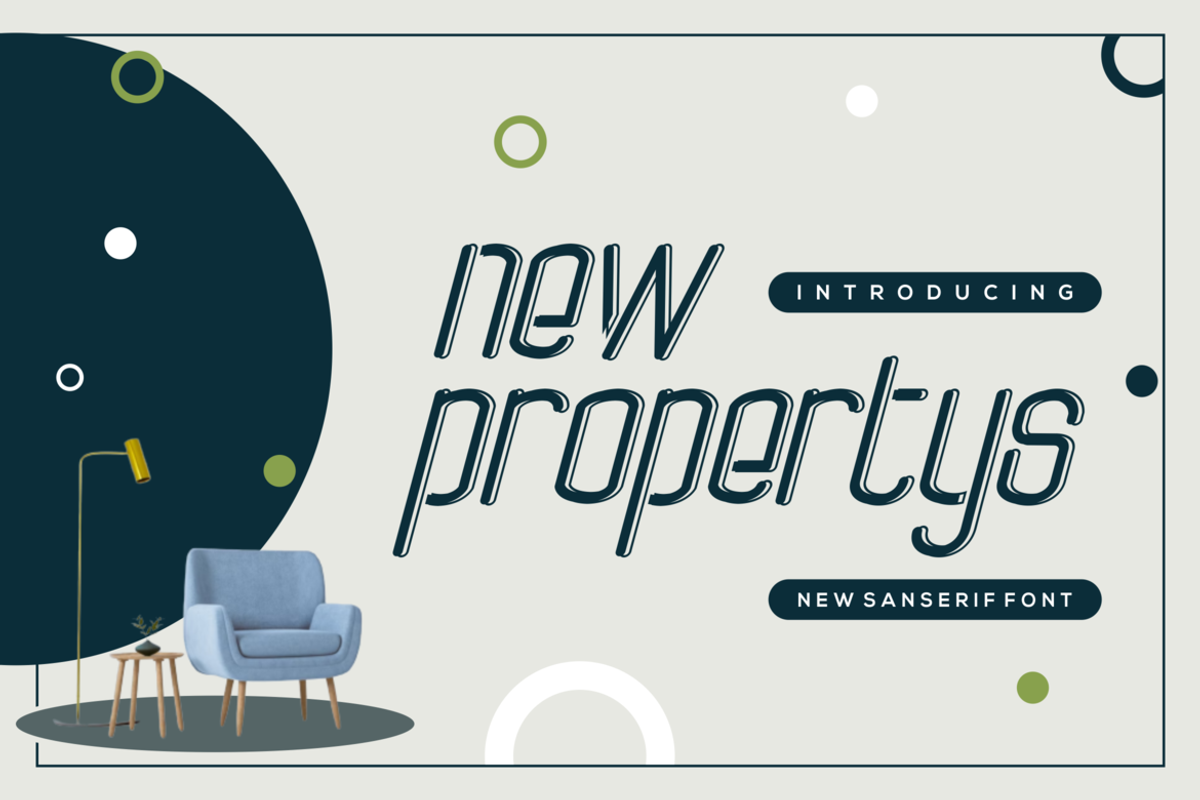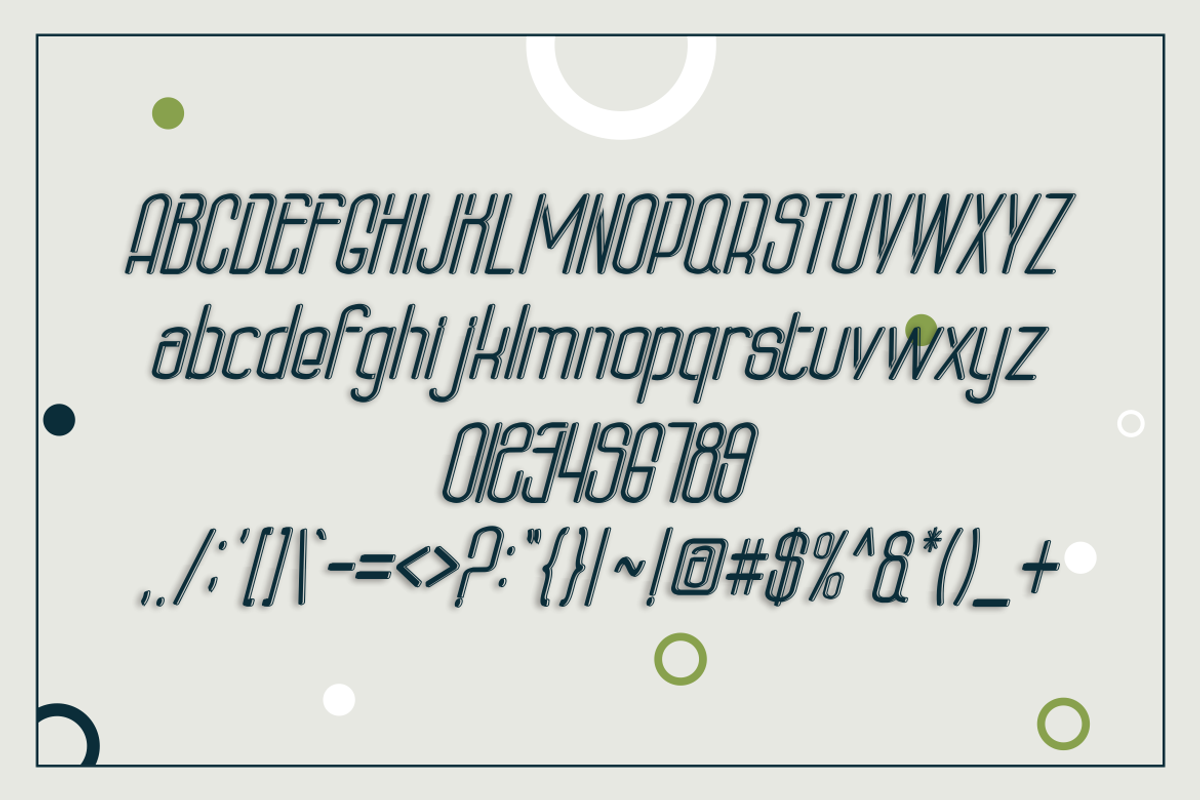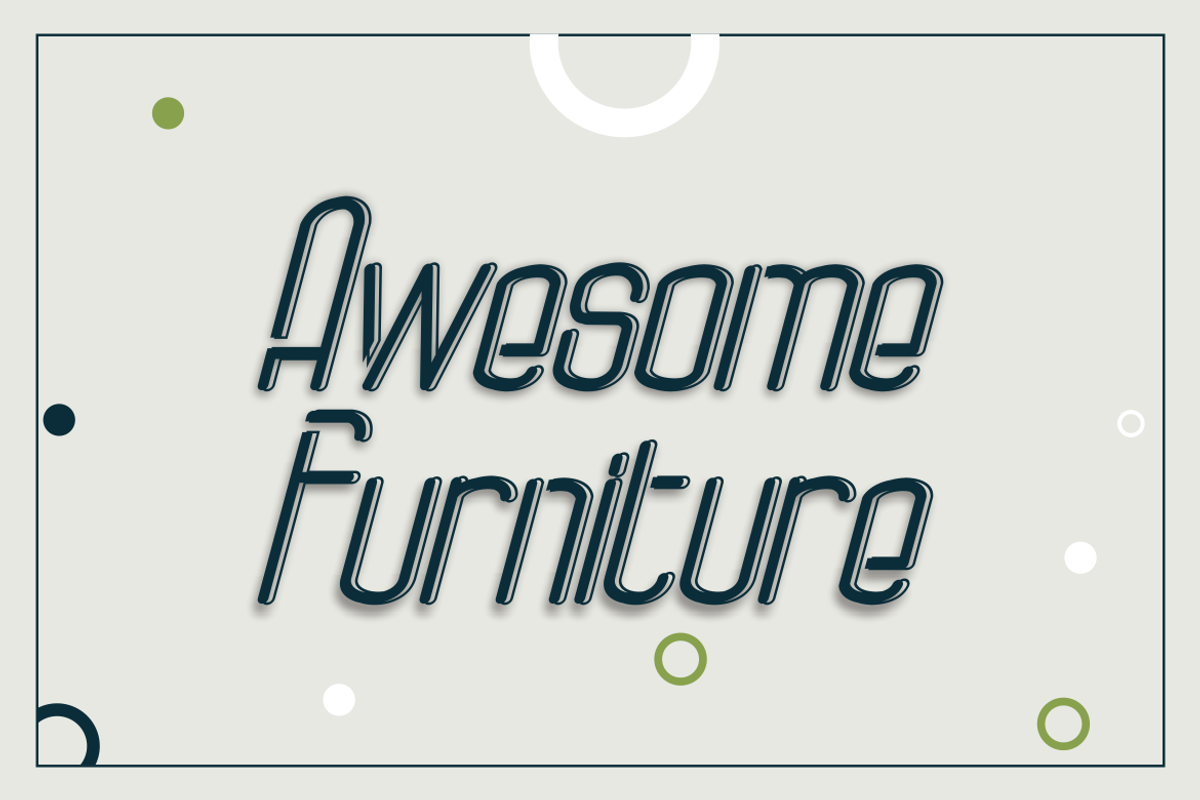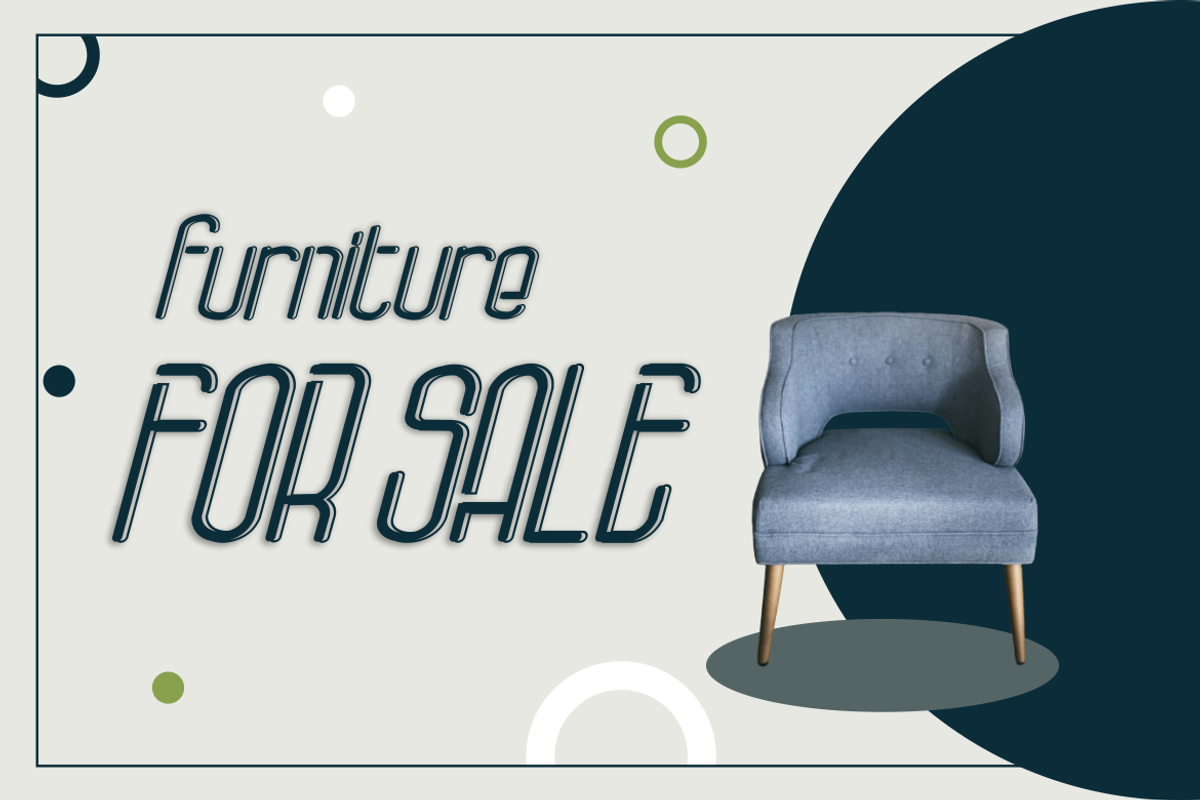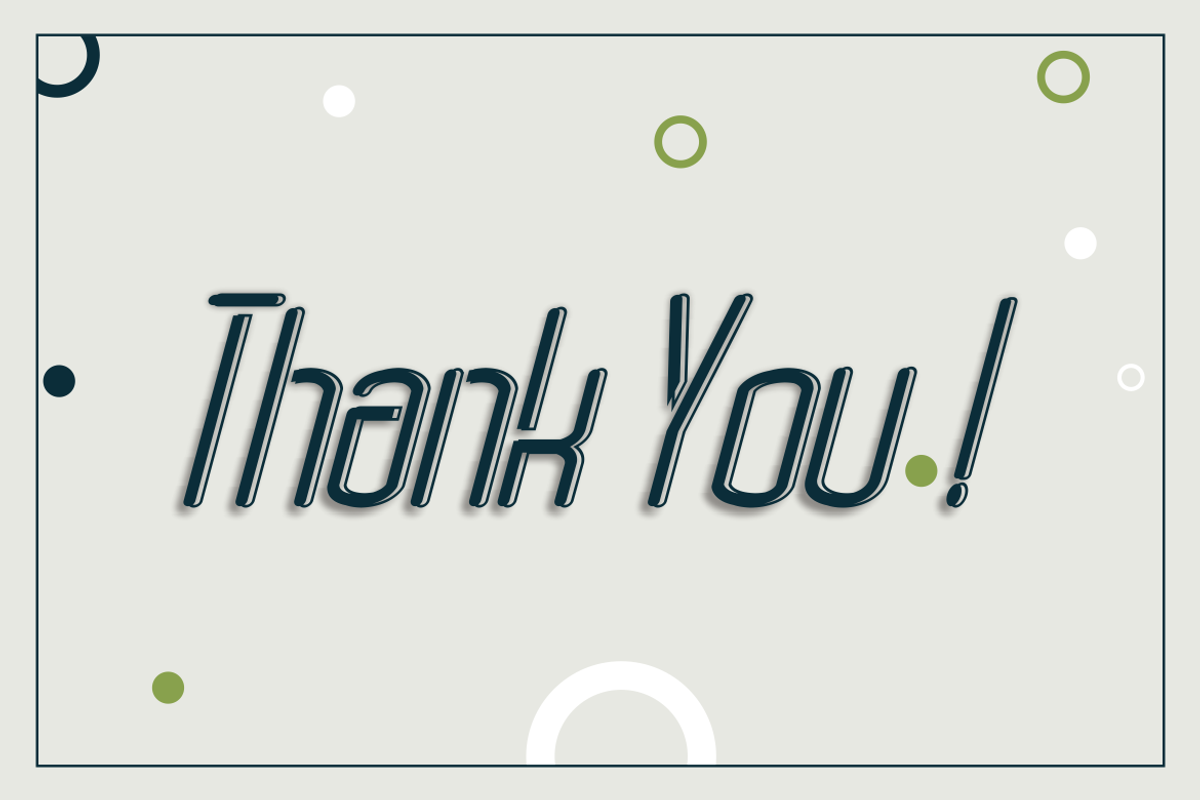
New Propertys
Introducing our new product New Propertys Font - Modern Font
New Propertys Font - Modern Font is a bold and authentic display font. The font is suitable for any branding project like logo, t-shirt printing, esport, and many more. outstanding in a wide range of contexts.